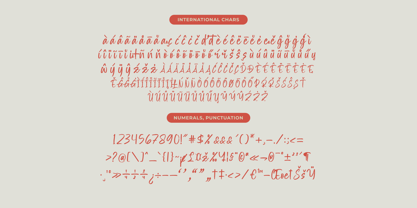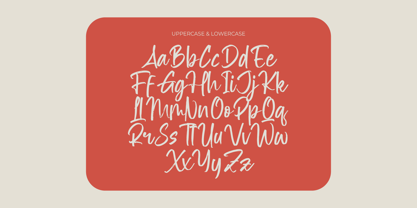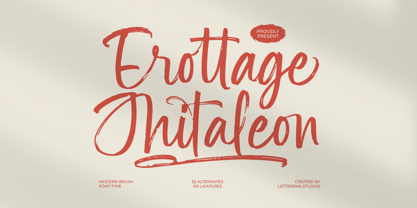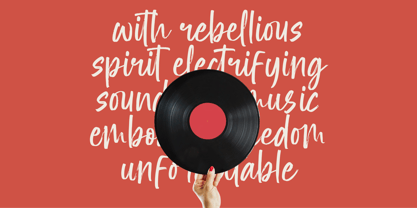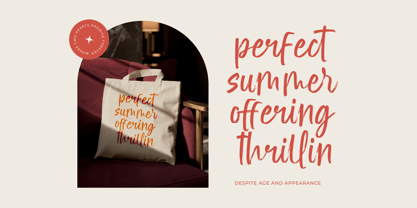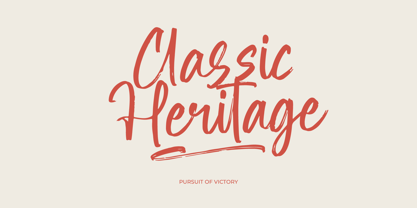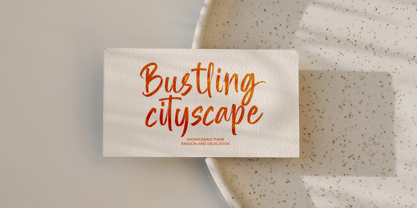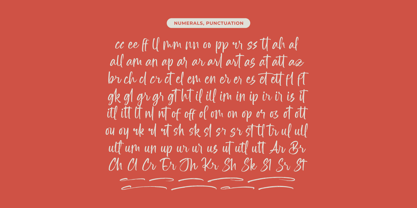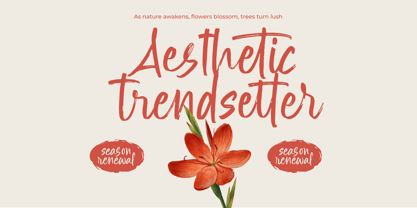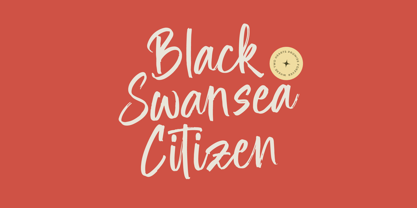
Erottage Jhitaleon
by Letterena Studios
The Erottage Jhitaleon Font Family was designed by Heru Utama Putra and published by Letterena Studios. Erottage Jhitaleon contains 2 styles and family package options. More about this family
Erottage Jhitaleon - Modern Brush Font Type , from Letterena, is a Luxury Script font, suitable for any projects such as: logos, branding projects, homeware designs, product packaging, mugs, quotes, posters, shopping bags, t-shirts, book covers, name card, invitation cards, greeting cards, label, photography, watermark, special events, and all your other luxury and beautiful projects that need a Luxury Script taste.